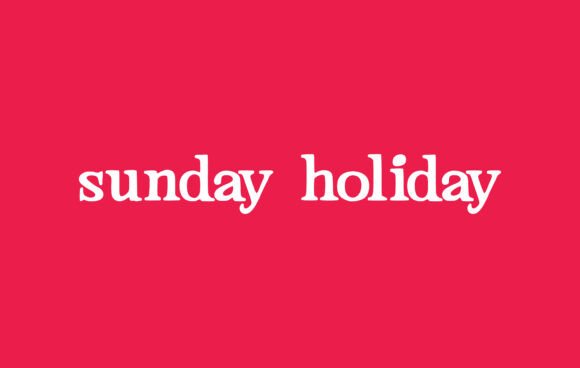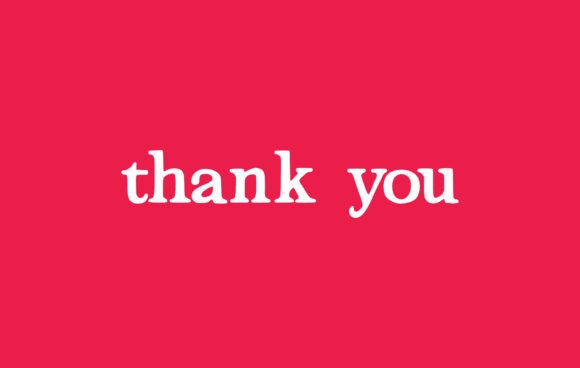
Introduction to Jeremiah Font
Jeremiah is an authentic font with a romantic touch.
Key Features of Jeremiah Font
Why Choose Jeremiah Font?
Jeremiah Font offers exceptional quality and versatility, making it a valuable addition to your design toolkit. Whether you’re creating for personal projects or commercial use, Jeremiah Font delivers professional results.